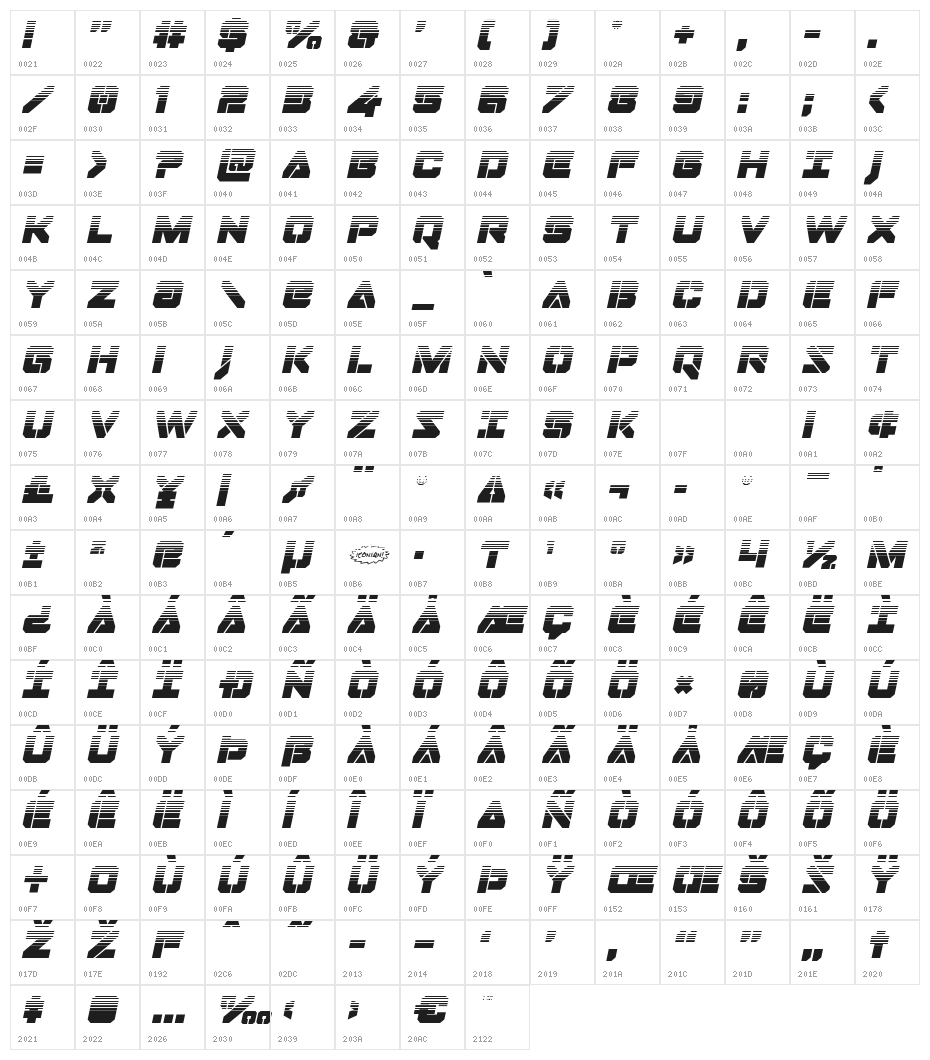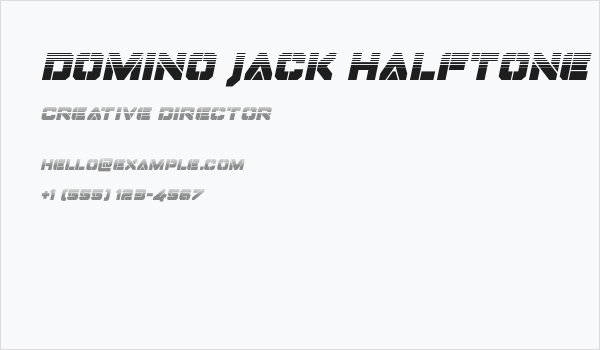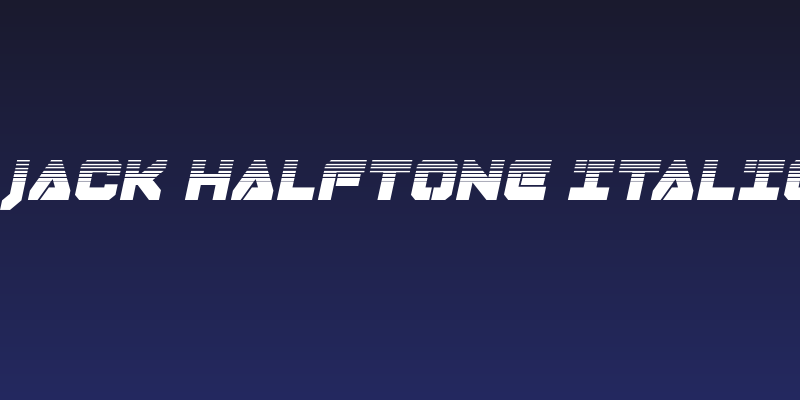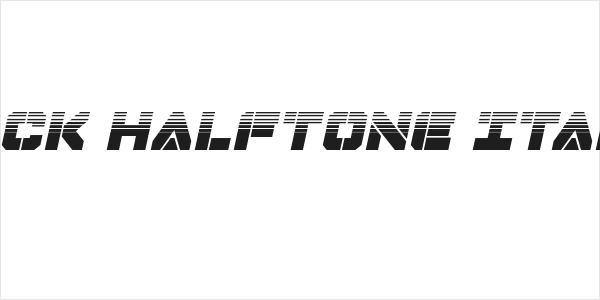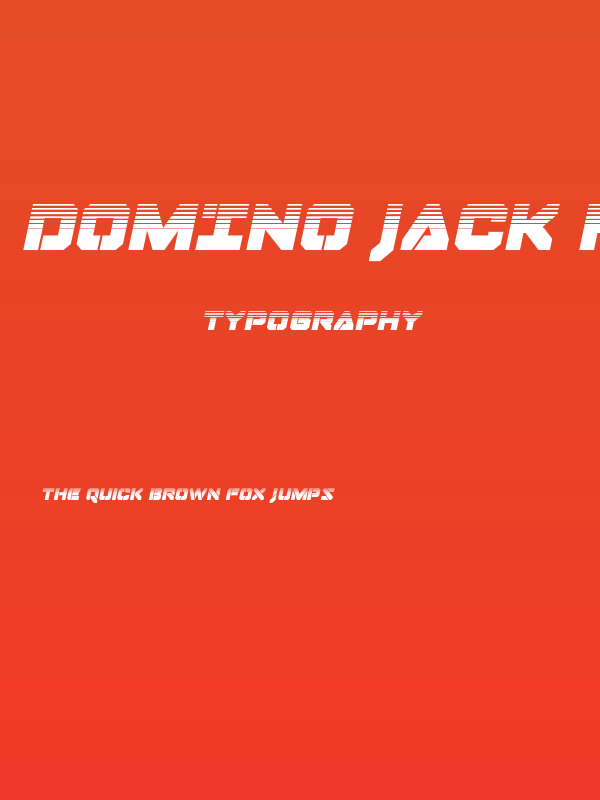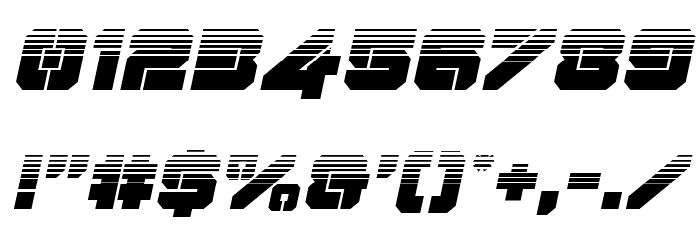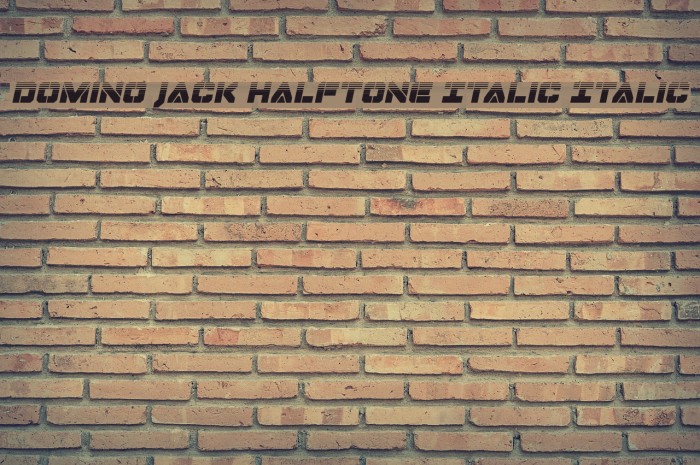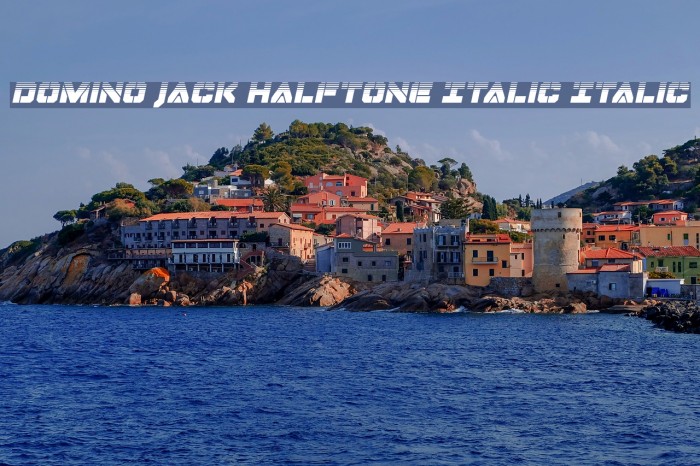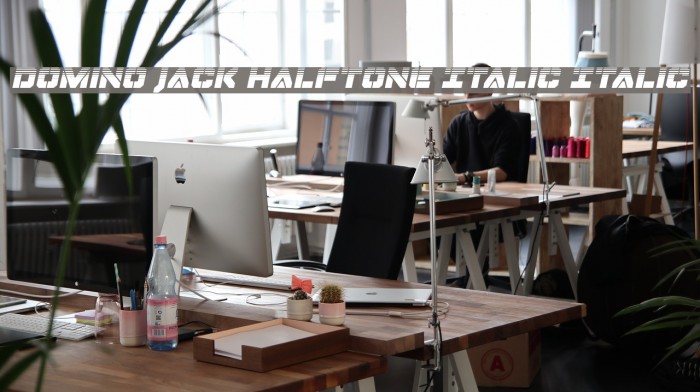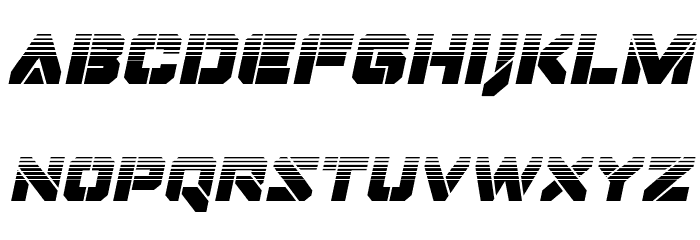
Domino Jack Halftone Italic Italic Font
Domino Jack Halftone Italic Italic Description
This font features a bold and dynamic design with a halftone effect that gives it a unique, modern appearance. The characters are italicized, adding a sense of motion and energy. Each letter is constructed with a series of horizontal lines that create a striking visual impact, making it ideal for attention-grabbing headlines or display purposes. The uppercase and lowercase letters, along with numbers and special characters, maintain a consistent style that emphasizes boldness and innovation. The font's geometric shapes and sharp angles contribute to its futuristic and edgy look.
| Proposed Projects | Ideal for futuristic branding, sports team logos, tech-related advertisements, and dynamic poster designs. |